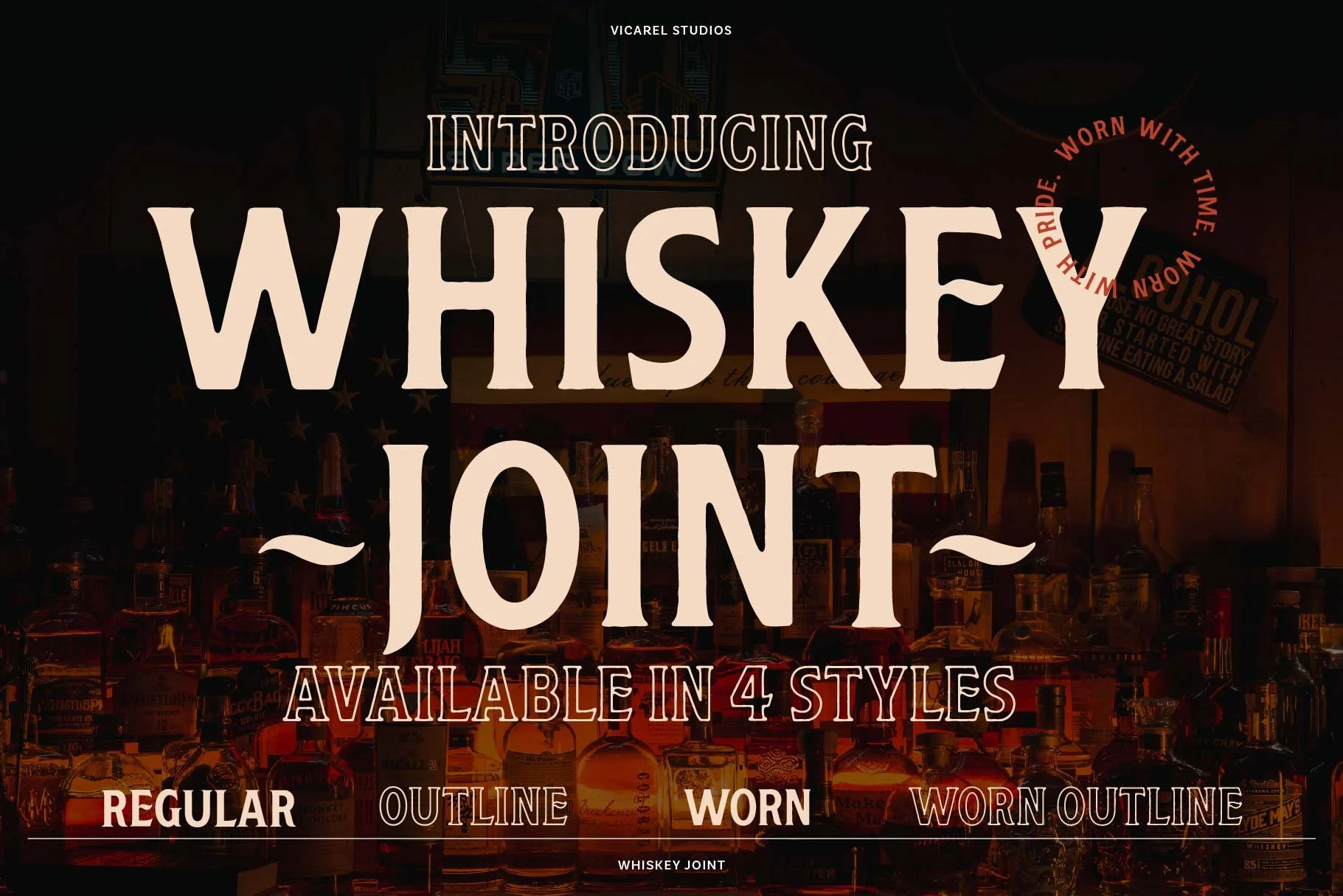
Introducing Whiskey Joint, the Perfect Font for Your Vintage Whiskey-Themed or Cannabis-inspired Design Projects.
Bring a classic touch to your designs with Whiskey Joint - the versatile font inspired by vintage whiskey and cannabis culture.
If you're a graphic designer looking for a hand-drawn, vintage display font, we’ve got something just for you.
Whether you’re working on a whiskey-themed project, looking for the perfect cannabis logo font, or generally just looking for a vintage display font, Whiskey Joint has 4 styles: regular, worn, outline and worn outline, and it is as versatile as it is beautiful.
This font is inspired by vintage whiskey labels, old signs and vintage ephemera from the 1920’s–1940’s. Whiskey Joint is the perfect font for creating a worn and authentic look for any whiskey, cannabis or vintage-related designs.
While reviewing other whiskey font collections, we found that many were either rough edged or clean edged. Few were both. Whiskey Joint was created to fill the void that was a versatile font that has a little bit of everything.
Whiskey Joint is the perfect font for:
Whiskey bottle labels
Menus for a whiskey bar
Distillery Websites
Cannabis logos
Weed company branding
Vintage logo design
…and so much more!
We created Whiskey Joint with a lot of attention to detail, and we tried to be inspired by as much whiskey nostalgia and cannabis culture as possible. Studying the fonts from old whiskey labels and vintage whiskey signs, we carefully crafted each letter to capture the essence of that vintage design inspiration.
As we created and refined the serifs of this typeface, we landed on a nice modern serif that’s inspired by the modulation of a cannabis leaf. The center of a cannabis leaf is broad, and it tapers off to a nice point, similar to Whiskey Joint’s serifs.